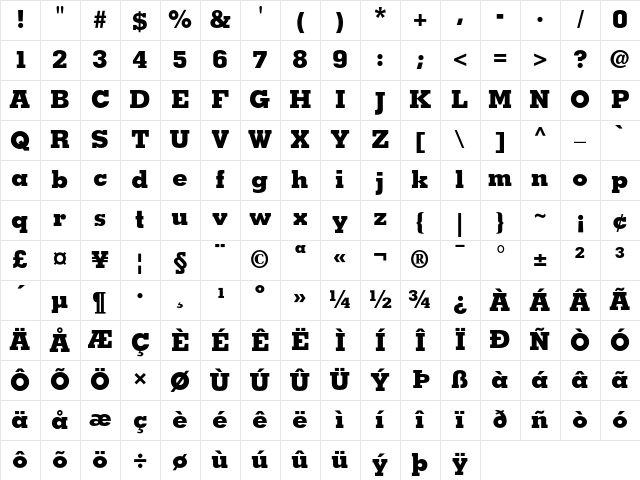
Memphis Extra Bold Free Font
Memphis Extra Bold
Style: Extra Bold
Complete Memphis Extra Bold glyph index. Displaying only characters natively supported by Memphis Extra Bold font.
Design Context for Memphis
Memphis is a composed and adaptable typeface that performs quietly and consistently across a wide range of design contexts. Its bold stroke weight gives it real presence on the page.